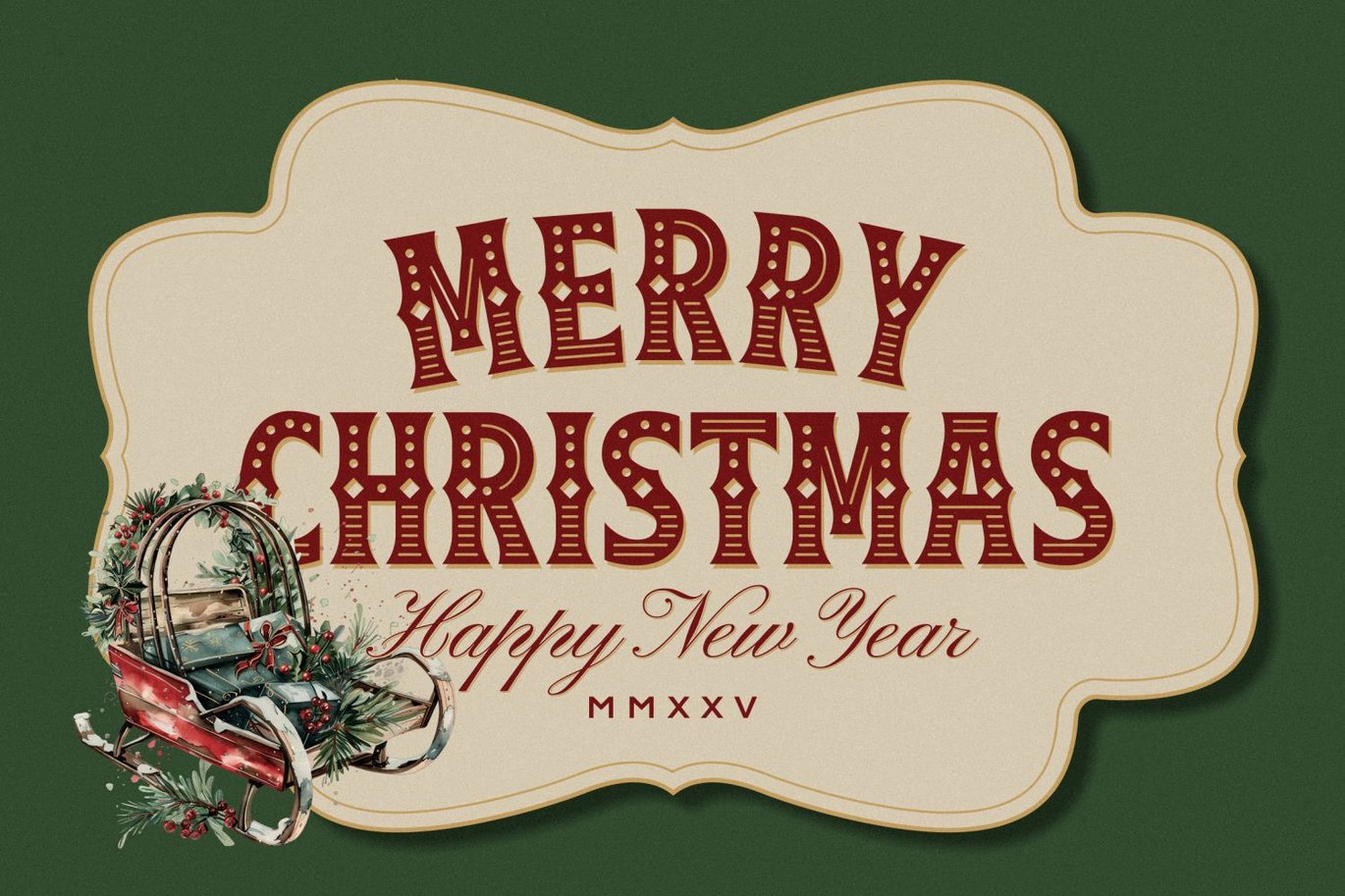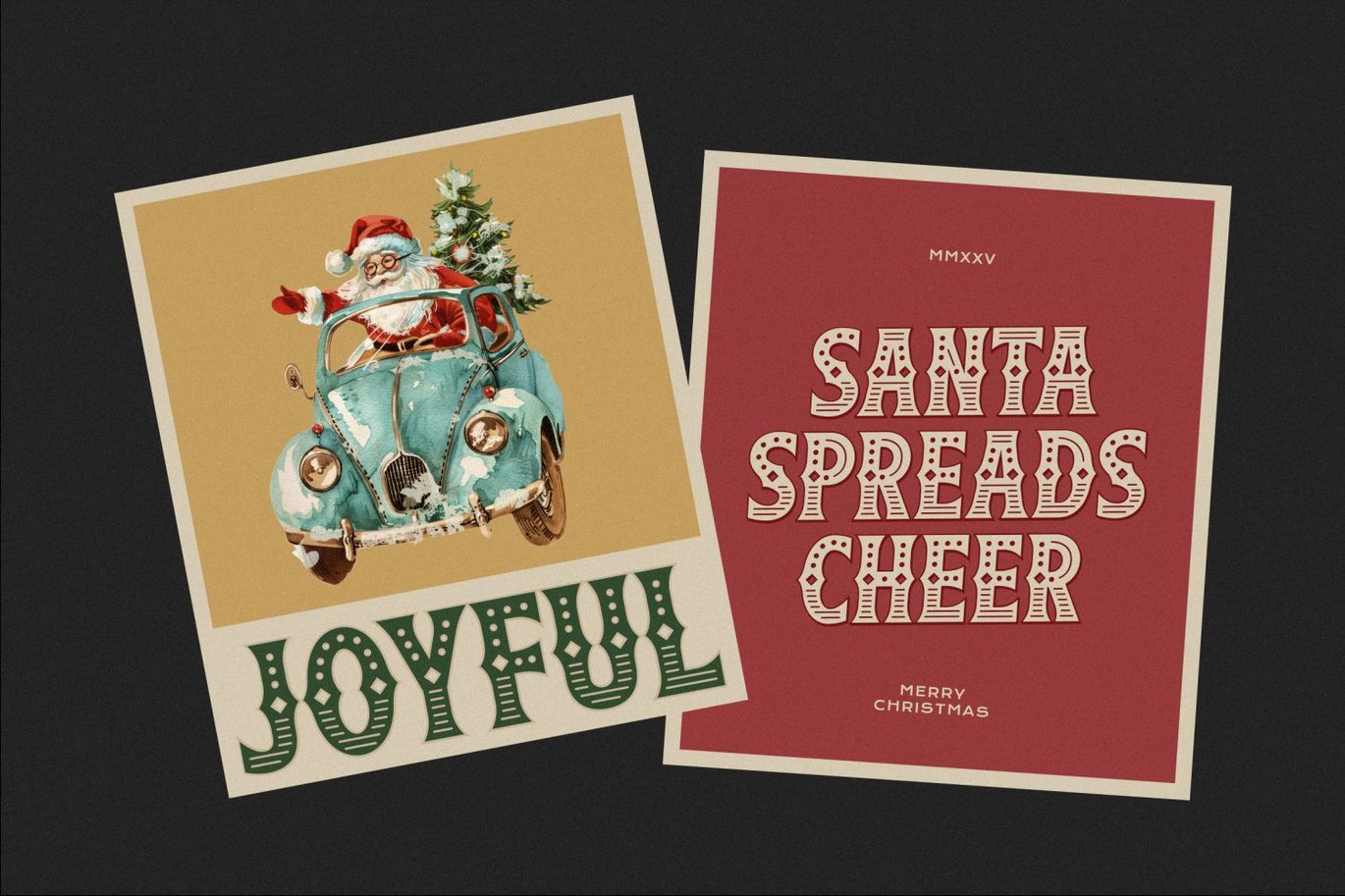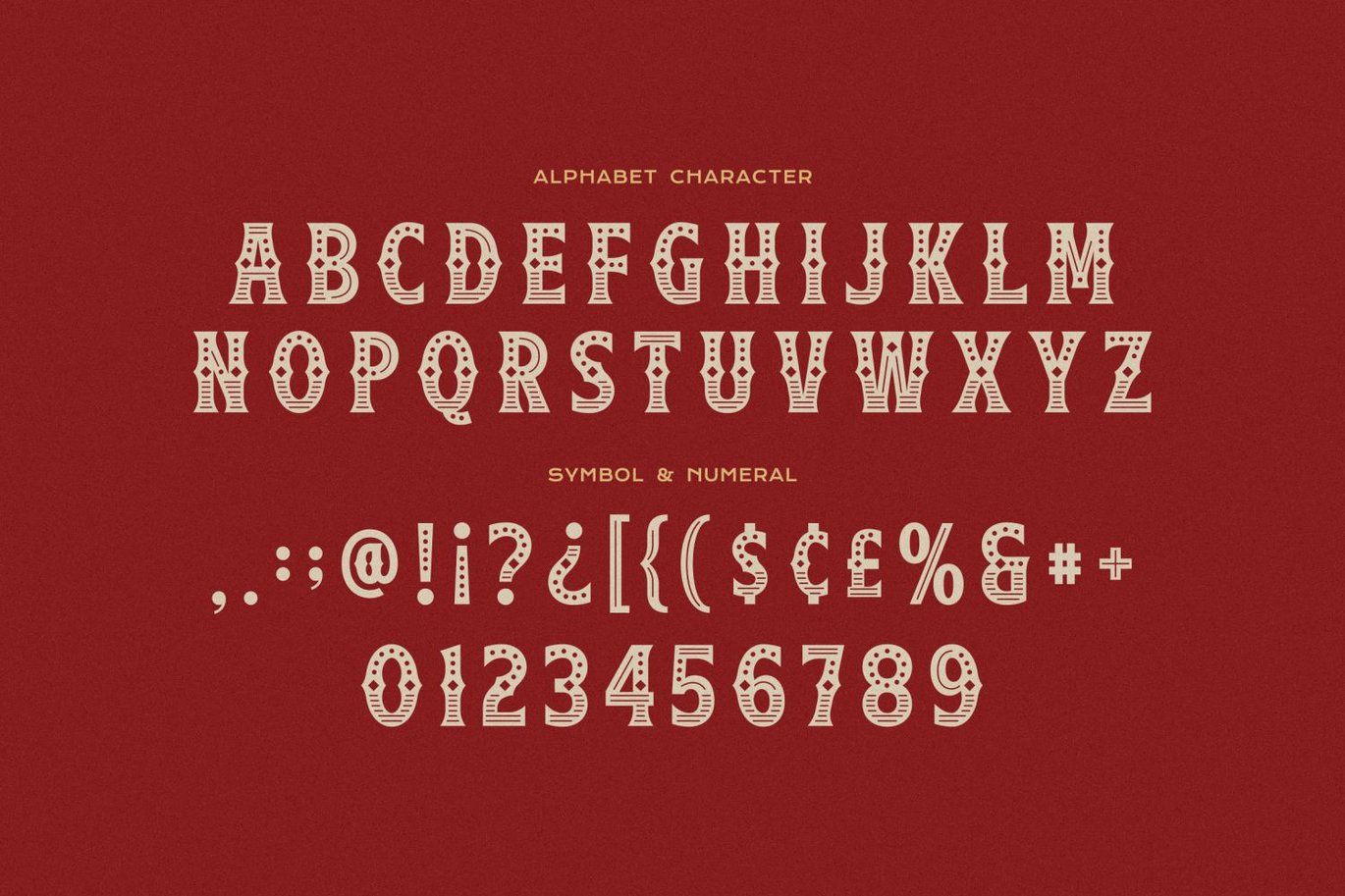
Wreath Magical
Wreath Magical is a vintage Christmas display font that brings a nostalgic holiday vibe to any design. With its bold, decorative style, each letter features intricate patterns reminiscent of classic Christmas motifs like wreaths and festive ornaments.
The font’s retro charm is perfect for holiday cards, invitations, or festive branding that seeks to capture the warmth and joy of traditional Christmas celebrations.
This font is designed to evoke a magical holiday atmosphere, with a vintage aesthetic that enhances the festive spirit. The unique details within each letter add a special touch, making it ideal for creating standout Christmas designs. Whether you’re aiming for an elegant or playful look, "Wreath Magical" provides the perfect balance of charm and timelessness for all your holiday projects.